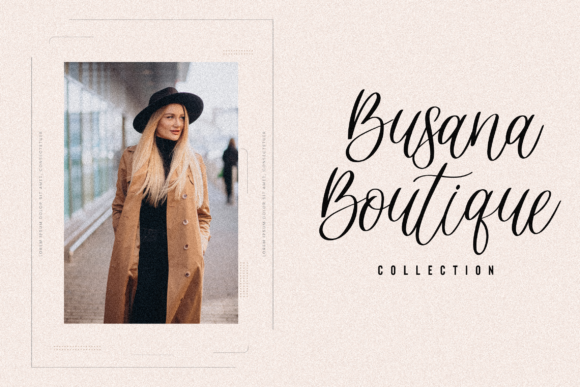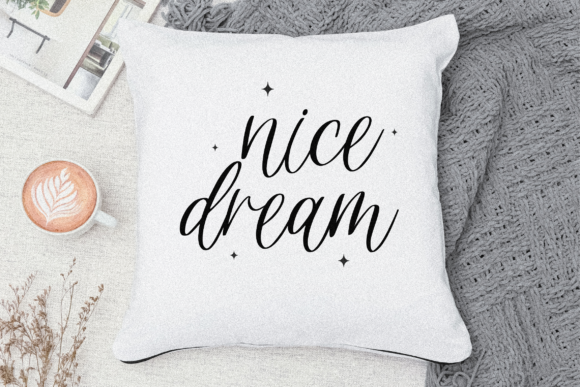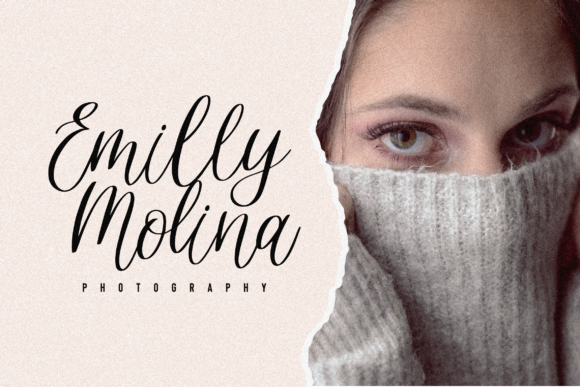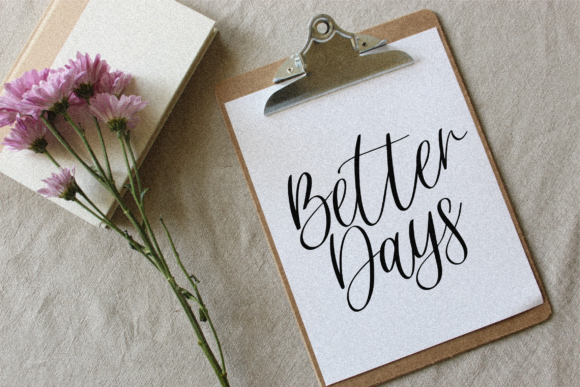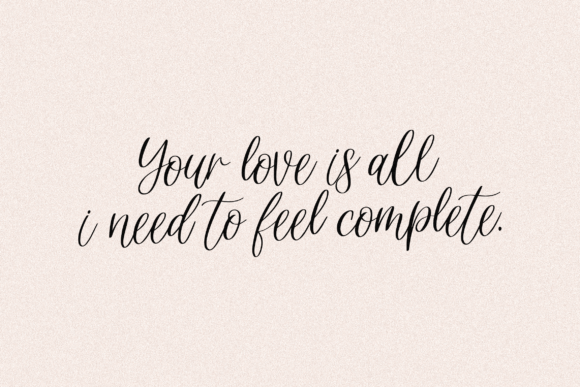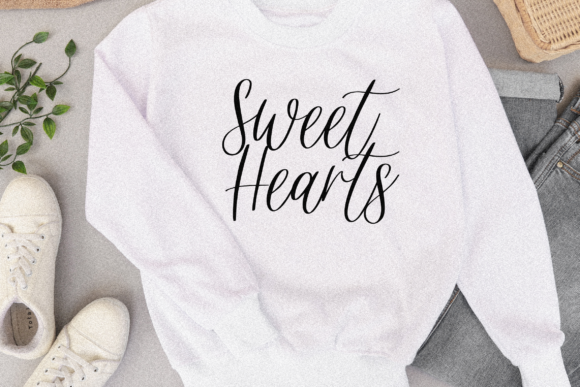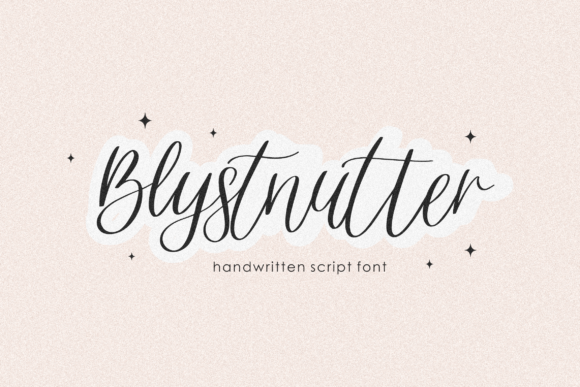
Blystnutter Font: Elevate Your Designs with Elegance and Whimsy
Are you a designer or crafter looking for a unique and captivating font to elevate your creative projects? Look no further than Blystnutter, an elegant and dainty handwritten font that features sweet and delicate swashes. This original look will appeal to a wide range of crafty ideas, from letterheads and titles to stationery and more.
The Charm of Blystnutter
Blystnutter is a one-of-a-kind font that exudes elegance and sophistication. Its delicate swashes and whimsical flair make it perfect for adding a touch of personality to your designs. Whether you’re creating a logo, invitation, or social media graphic, Blystnutter is sure to make your project stand out.
Key Features of Blystnutter
- Elegant and dainty handwritten font: Blystnutter features a beautiful, cursive script that’s perfect for creating sophisticated designs.
- Sweet and delicate swashes: The font’s swashes add a touch of whimsy and flair to your designs, making them truly unique.
- Versatile: Blystnutter is perfect for a wide range of crafty ideas, from letterheads and titles to stationery and more.
Blystnutter is a font that’s specifically designed with designers and crafters in mind. Its unique look and versatility make it perfect for a wide range of projects, including:
- Letterheads and titles: Add a touch of elegance to your business correspondence with Blystnutter.
- Stationery: Create beautiful, one-of-a-kind stationery that’s sure to impress.
- Invitations: Make your invitations truly special with Blystnutter’s delicate swashes and whimsical flair.
- Social media graphics: Elevate your social media presence with Blystnutter’s elegant and sophisticated look.
Tips for Using Blystnutter
To get the most out of Blystnutter, here are a few tips to keep in mind:
- Experiment with different sizes: Blystnutter looks great in a variety of sizes, from small and delicate to large and bold.
- Play with swashes: The font’s swashes are a key feature, so don’t be afraid to experiment with different swash combinations.
- Pair with other fonts: Blystnutter pairs well with a variety of other fonts, so feel free to get creative with font combinations.
Blystnutter is a truly unique and captivating font that’s perfect for designers and crafters looking to elevate their creative projects. Its elegant and dainty handwritten look, sweet and delicate swashes, and versatility make it a must-have for anyone looking to add a touch of personality to their designs. So why wait? Download Blystnutter today and start creating beautiful, one-of-a-kind designs that are sure to impress.
- What is Blystnutter?
- Blystnutter is an elegant and dainty handwritten font that features sweet and delicate swashes.
- What can I use Blystnutter for?
- Blystnutter is perfect for a wide range of crafty ideas, from letterheads and titles to stationery and more.